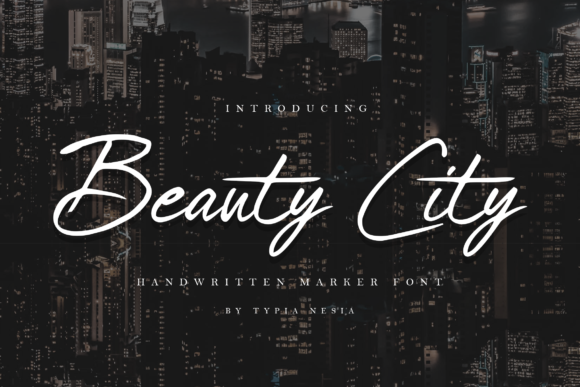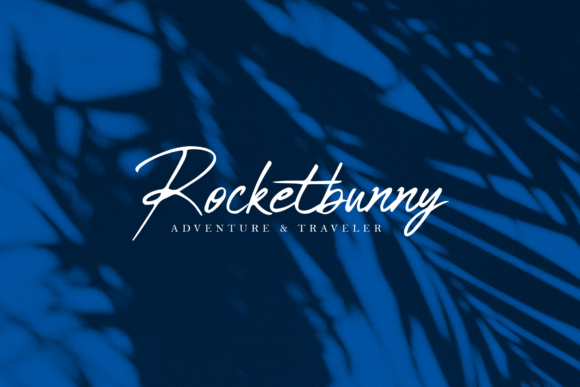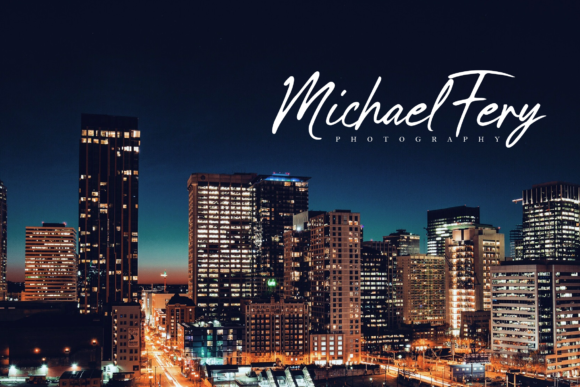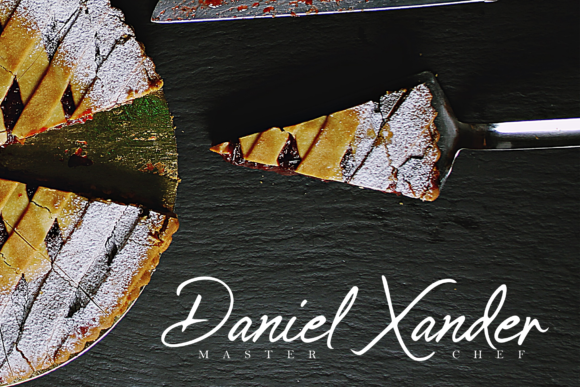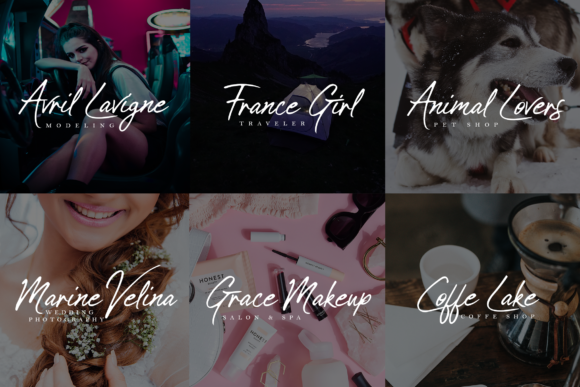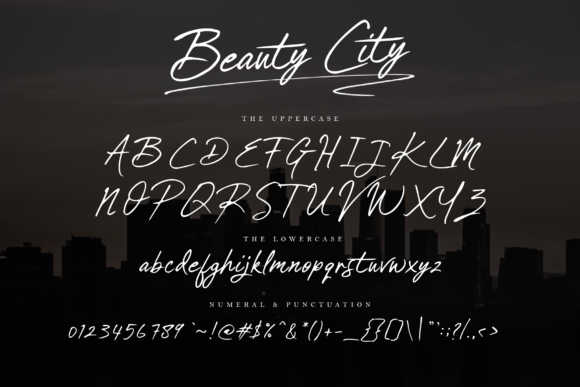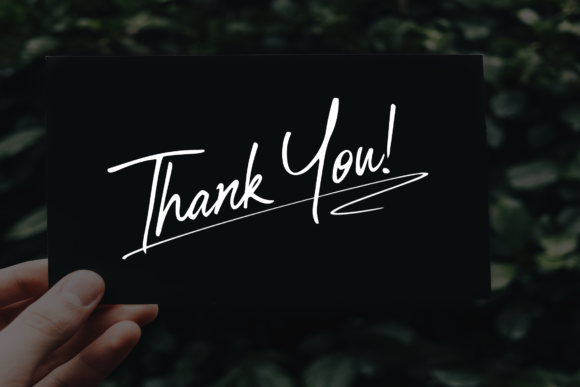
Beauty City Font
About Beauty City Font
Beauty City is an incredibly charming and dazzling handwritten font with a cool feel. It will turn any design project into a true standout!